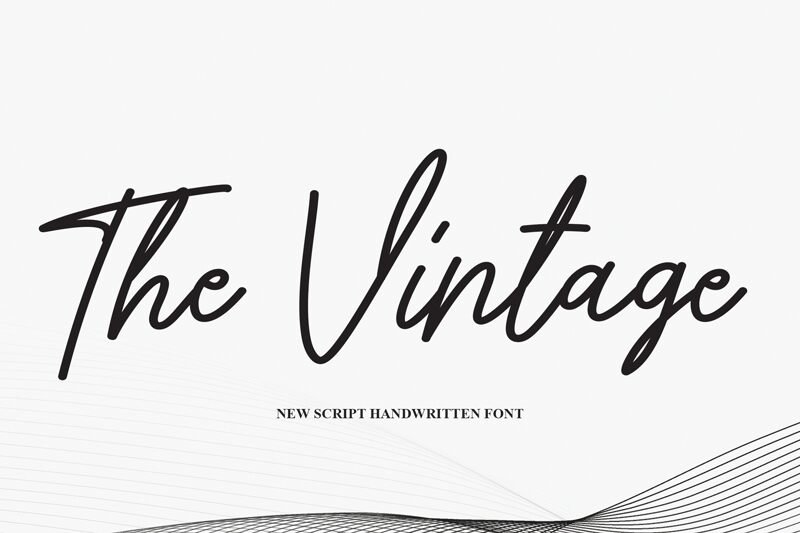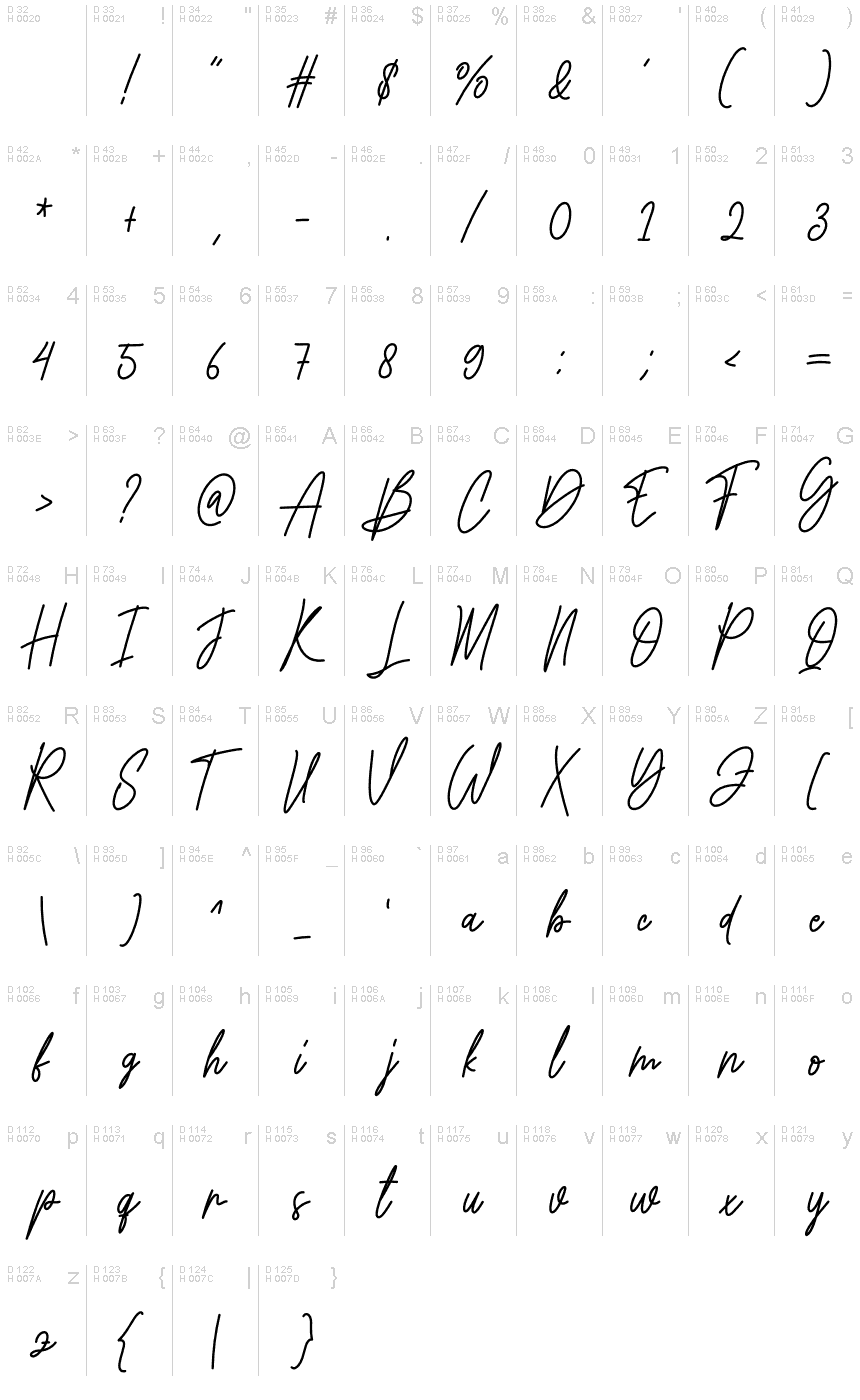
The Vintage
The Vintage font, designed by Scratchones, brings a touch of nostalgia to your projects with its handwritten style.
Its light weight adds a delicate and whimsical feel, making it perfect for wedding invitations, greeting cards, and feminine branding. With its vintage charm, this font evokes a sense of timeless elegance, making it suitable for retro-inspired designs, including posters and album covers.
Let The Vintage font transport your audience to a bygone era with its graceful curves and nostalgic appeal.